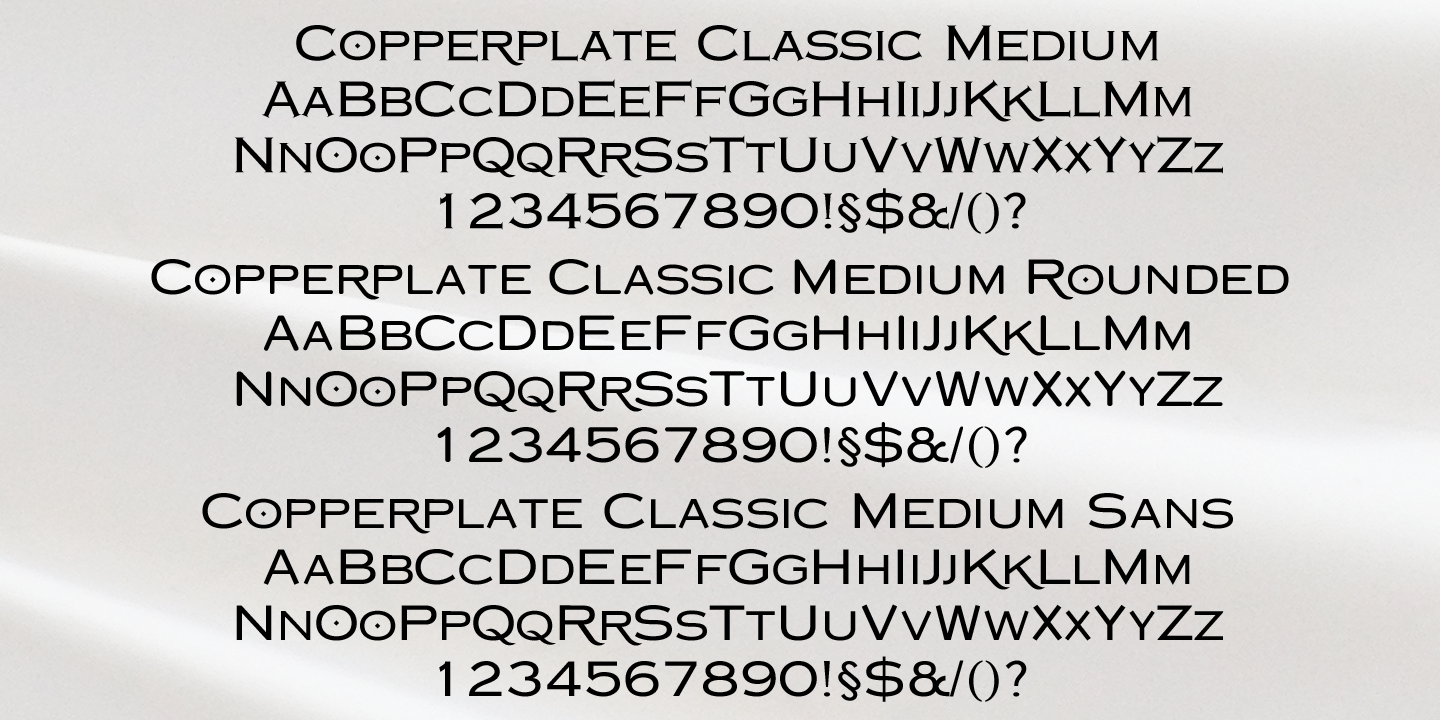
Copperplate Classic Medium Font is a distinguished and timeless serif typeface, renowned for its strong, unbracketed serifs and refined, authoritative presence. This classic font is an exceptional choice for projects that demand a sense of tradition, prestige, and unwavering professionalism. Imagine it perfect for legal documents, financial reports, prestigious university branding, elegant corporate stationery, high-end invitations, and sophisticated editorial designs for luxury goods. Its inherent strength and dignified character ensure that your message is not only visually impactful but also conveys a deep sense of established credibility and enduring quality. Copperplate Classic Medium Font excels in environments where clarity, formality, and a polished visual language are paramount, making your content both authoritative and effortlessly distinguished.
What makes Copperplate Classic Medium Font truly exciting is its remarkable ability to blend historical gravitas with a clean, highly legible structure that performs admirably in modern contexts. It retains the iconic elegance of traditional copperplate engraving, giving each character a chiseled precision that speaks of craftsmanship and reliability. This font isn't just about displaying text; it's about making a profound statement, injecting your designs with a sense of robust formality and timeless sophistication. It has a powerful ability to feel both incredibly strong and surprisingly versatile, making it an ideal tool for designers who want their work to convey unwavering confidence, enduring quality, and a truly memorable visual impact. Copperplate Classic Medium Font Free Download empowers brands and creatives to project an image of undeniable authority and classic allure.
The Copperplate Classic Medium Font family typically offers a range of weights to ensure versatility for diverse design projects. While its "Medium" weight is often a cornerstone, you'll frequently find it complemented by light, bold, and sometimes ultra-bold variations. These provide robust options for typographic hierarchy and emphasis within your designs, allowing for consistent visual branding across various applications. Its broad character set usually covers a wide range of Latin characters, numbers, and extensive punctuation, ensuring that Copperplate Classic Medium Font is suitable for international projects and complex textual layouts. Its distinctive and memorable presence ensures that any project featuring Copperplate Classic Medium Font will leave a strong, lasting impression.